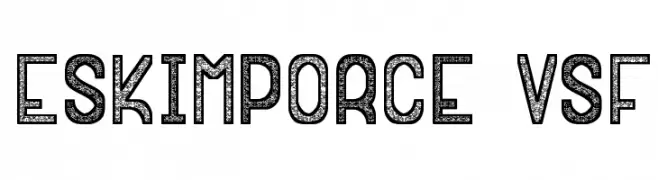
A spooky, Halloween-themed font with dripping, cobwebbed characters.
A playful Halloween-themed font with characters inside pumpkin shapes.
A decorative font with bold characters enclosed in boxes, featuring a marquee light style.
A rugged, distressed font with a vintage western feel.
A playful, hand-drawn font with bold, irregular strokes and a comic book feel.
A bold, decorative font with intricate patterns and thick outlines.
A bold, decorative font with a stippled texture, perfect for creative projects.
A dot matrix style font inspired by LED displays, offering a modern and digital look.
A bold, hand-drawn font with textured, sketch-like characters.
Extraterrestrial-themed decorative font with alien heads and symbols.
A decorative font made of expressive hand-drawn emoticon faces in circles.
A bold, outlined font with a retro, disco-inspired design.
A bold, geometric font with intricate patterns for striking visual impact.
Bold, geometric icon set with high contrast and clear shapes.
A bold, playful font with thick outlines and a cartoonish style.
A bold, decorative font with a striped pattern and geometric structure.